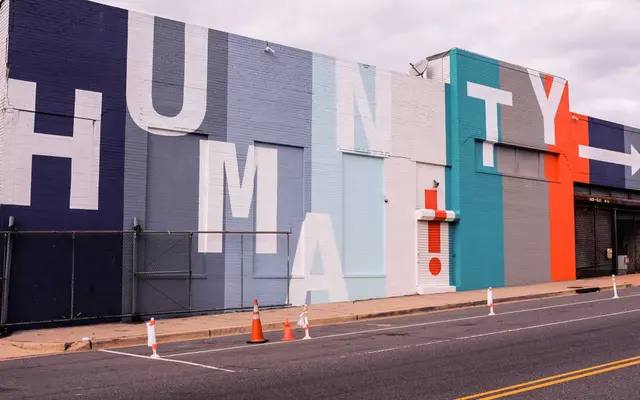
Suisse Int'l
Swiss Typefaces · Ian Party
A neo-grotesque sans designed by Ian Party at Swiss Typefaces, built to a high degree of multilingual coverage including Latin, Cyrillic, Arabic and Vietnamese.
Designed by Ian Party at Swiss Typefaces, it follows the neutral grotesque tradition of mid-century Swiss typography with a broad, methodically extended character set. Arabic development was handled by Pascal Zoghbi and Naïma Ben Ayed, Cyrillic by Ilya Ruderman and Yury Ostromentsky, and Vietnamese consulting by Donny Trương, giving the family genuine depth across scripts. Font engineering by Benedikt Bramböck and Christoph Koeberlin rounds out a production quality rarely matched in contemporary grotesque releases.
Suisse Int'l is a neo-grotesque sans-serif in the tradition of Swiss-style neutrality, drawing on the mid-century grotesque canon with broad multilingual coverage and systematic weight range.